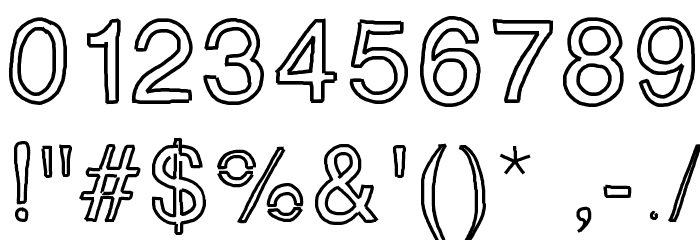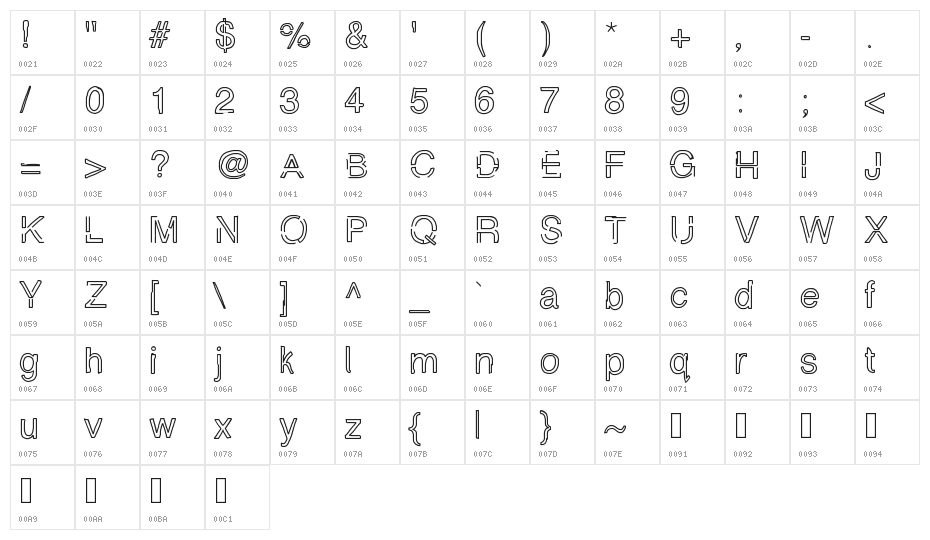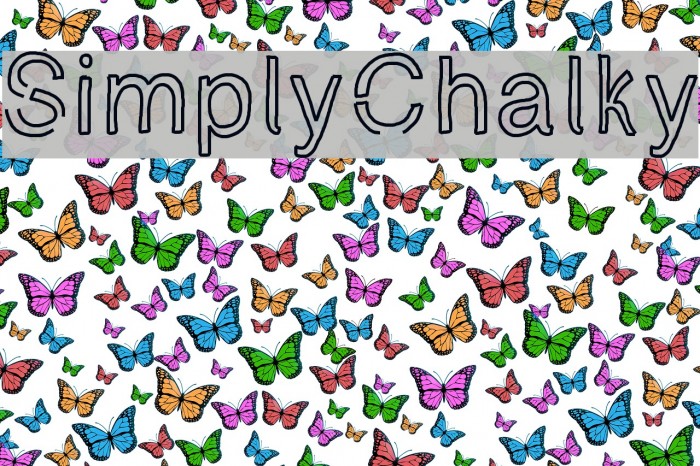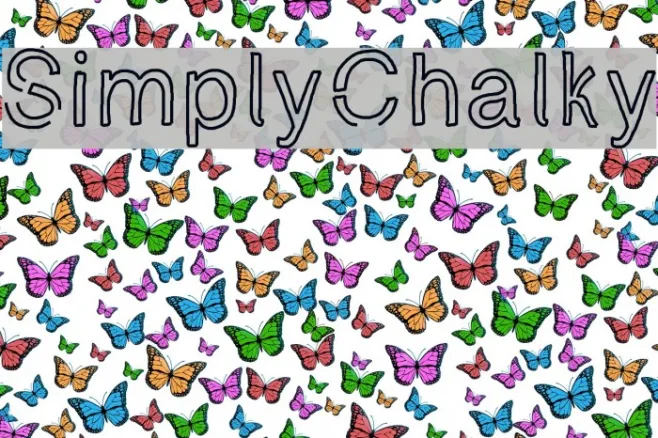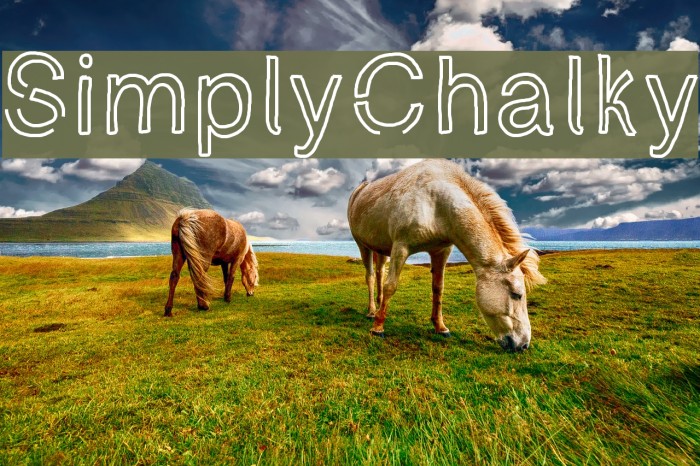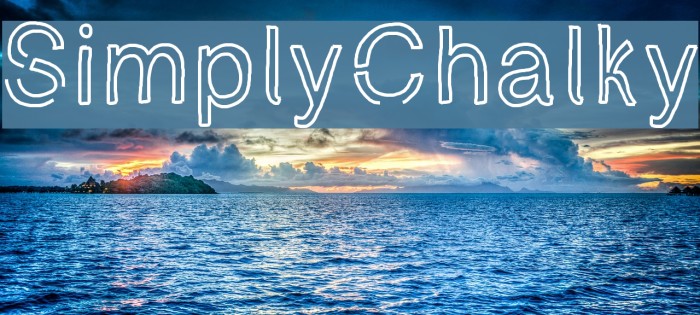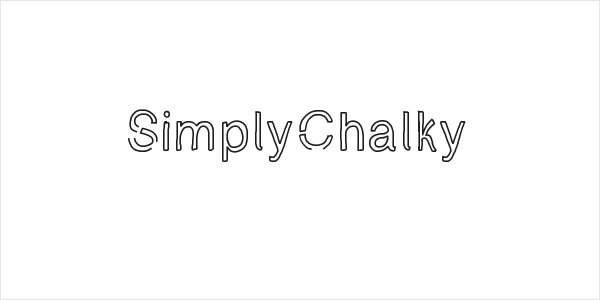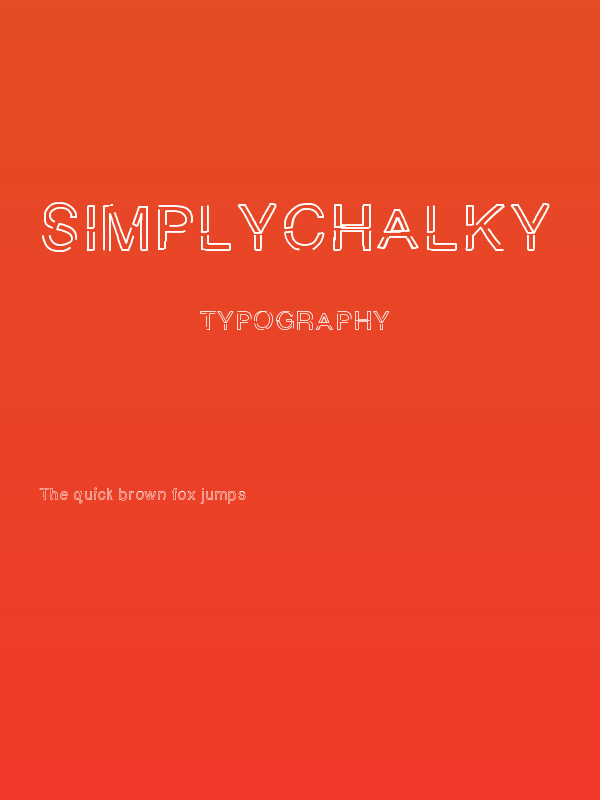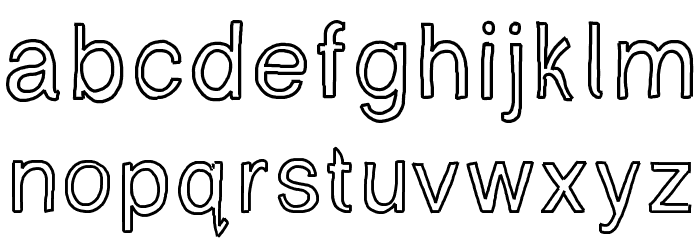
SimplyChalky Font
SimplyChalky Description
This font features a playful, hand-drawn style reminiscent of chalk writing on a blackboard. The characters are outlined with a double line effect, giving them a unique, layered appearance. The uppercase and lowercase letters maintain a consistent style, with rounded edges and a slightly uneven baseline that adds to the casual, informal feel. Numbers and special characters are included, matching the overall aesthetic with their quirky, artistic design. This font is perfect for projects that require a fun and approachable look, such as children's books, educational materials, or creative event posters.
| Proposed Projects | Ideal for children's books, educational materials, creative event posters, and playful branding. |